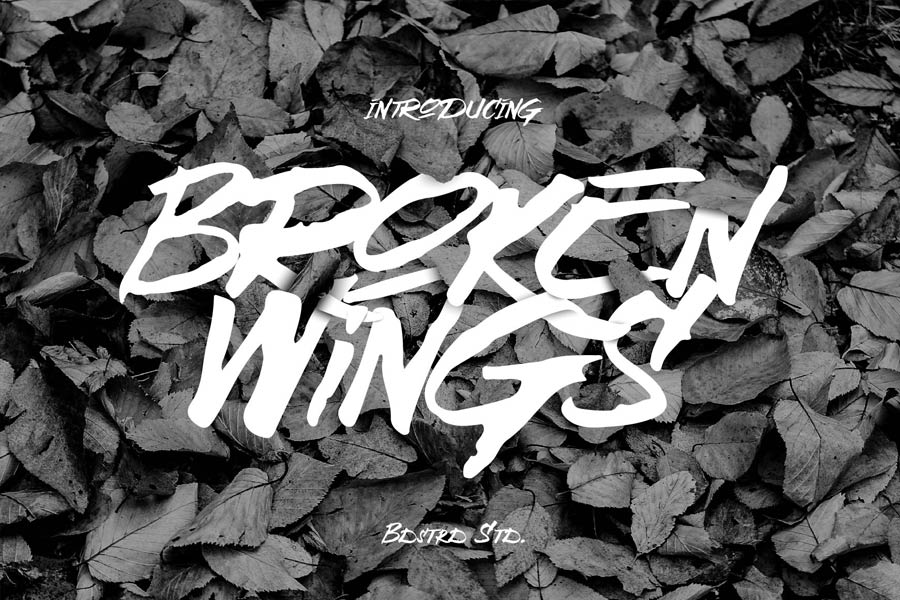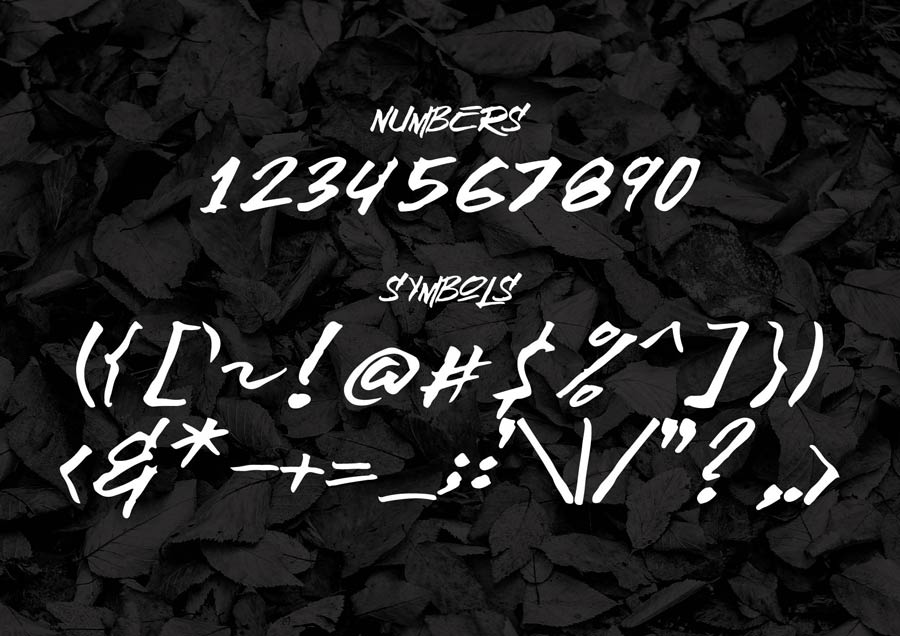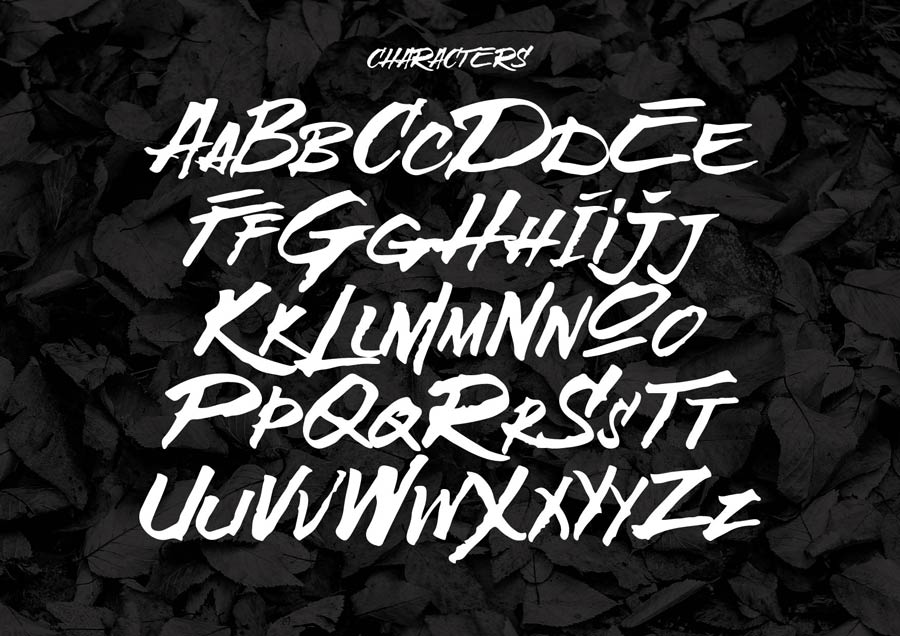
Broken Wings is an expressive, rugged brush font that is free to download. It has only capital letters, although the lowercases are small capitals of the uppercases. This font is suitable for displays or t-shirt designs, be it for decorative purposes or for expressing a message.
- Designer: Bdstrd Std.